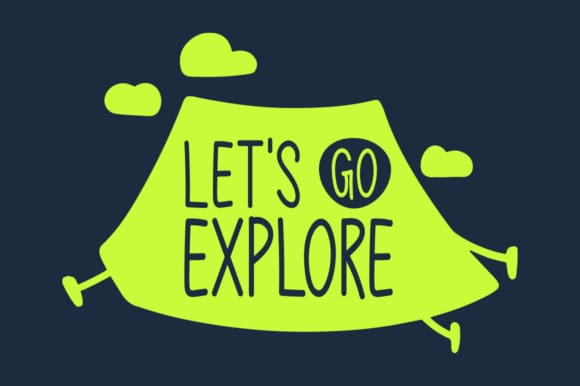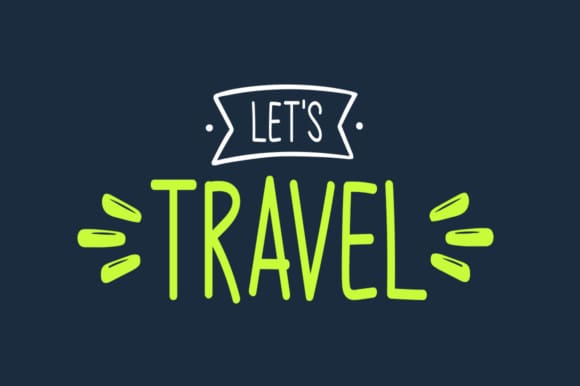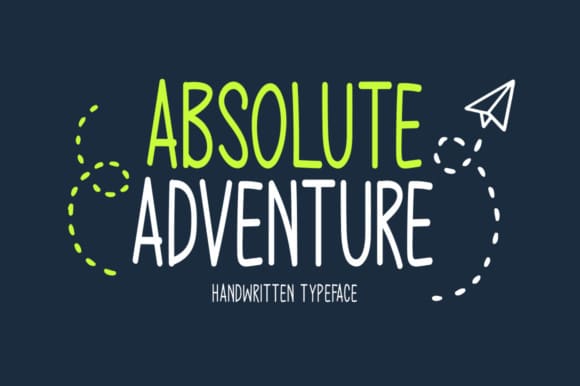
Absolute Adventure Font
Absolute Adventure Font is a unique handwritten font. This font is a great choice for a wide variety of contexts! It looks amazing on greeting cards, business cards, logos, thank-you cards, quotes, greeting cards, and any other design that needs a creative spark.